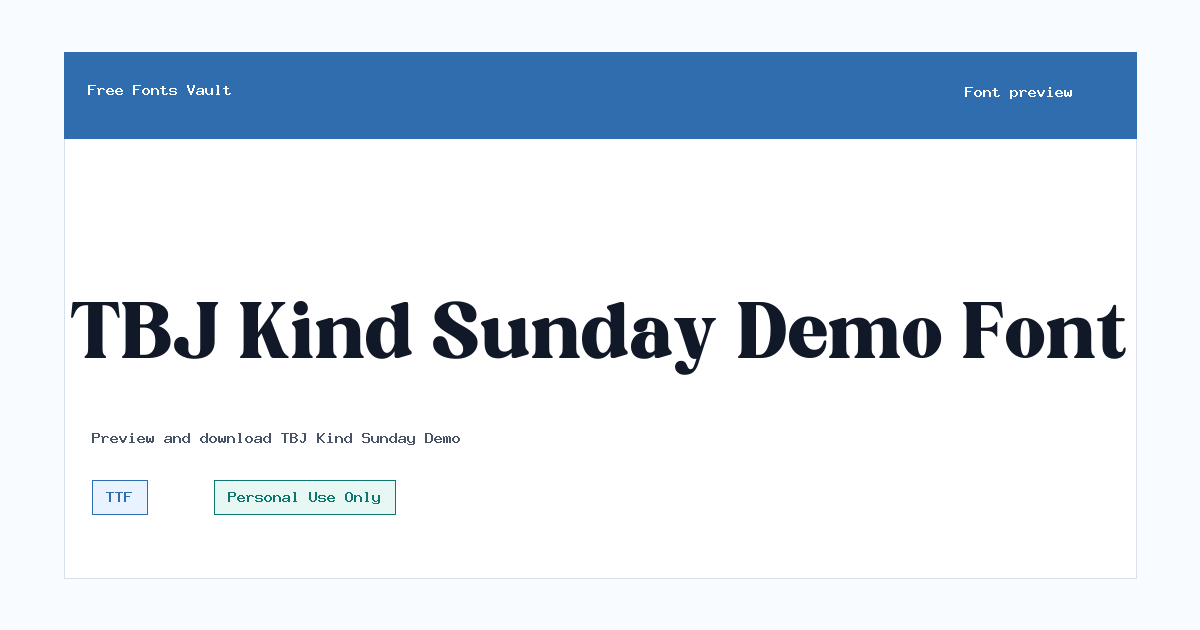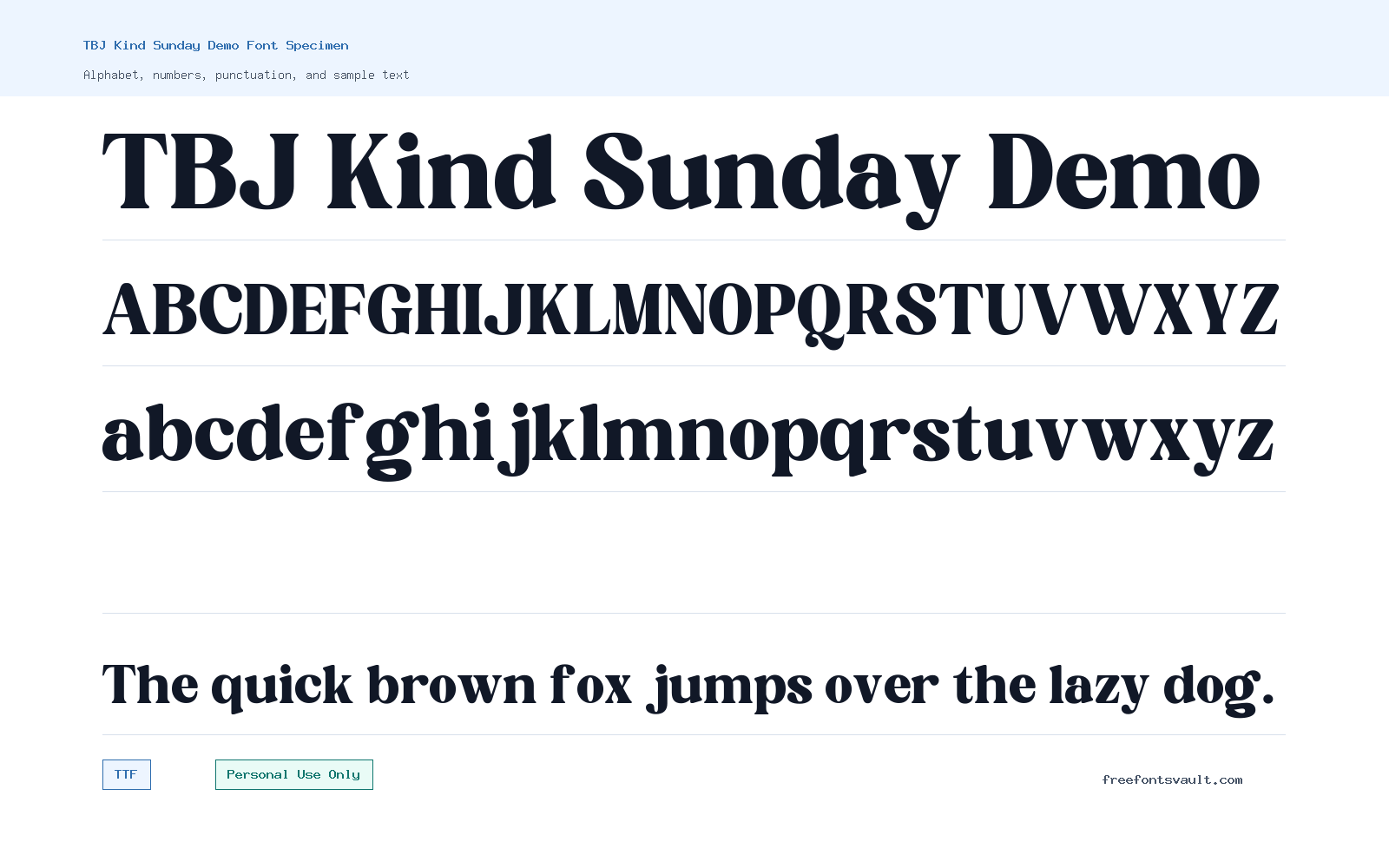
TBJ Kind Sunday Demo
- Designer Taboja Studio
TBJ Kind Sunday Demo is a serif display font from Taboja Studio with a personal-use license. It is best approached as a try-before-you-use font for creative layouts, branding tests, social graphics, and short headline previews.
TBJ Kind Sunday Demo has the kind of serif personality that works best when the text is allowed to stand on its own. Rather than treating it like a long-reading body font, use it where a few words need character: a title, a logo draft, a quote graphic, a poster heading, a packaging mockup, or a moodboard label. The demo file is available as a regular-weight TTF, which makes it easy to install and test in common design apps. Since only one regular style is present, the font is most useful for display settings where you can control size, spacing, and contrast manually.
For designers, the safest way to judge TBJ Kind Sunday Demo is to test your actual words in the preview before downloading. Serif display fonts can change a lot depending on the letters used, especially in names, short phrases, and brand-style lockups. Try uppercase and lowercase combinations, check how repeated letters look, and test punctuation if your project needs it. If you are building a logo concept, poster, invitation, or web hero mockup, start with a generous size and adjust tracking slowly. Tight spacing may give the words a more compact look, while wider spacing can make the font feel calmer and easier to read.
This font can be useful for visual projects that need a softer serif tone without relying on a plain text face. It may suit boutique-style mockups, personal branding drafts, lifestyle graphics, wedding or event concepts, quote cards, packaging studies, and editorial-style titles. Keep the text short. A font like this is usually stronger in a few words than in a full paragraph. For menus, captions, product descriptions, or blog text, pair it with a simpler sans serif or a clean text serif so the decorative voice does not compete with readability.
For web mockups, TBJ Kind Sunday Demo can help you explore a heading direction before committing to a final type system. Use it in hero headlines, section openers, or large image overlays, then pair it with a neutral font for navigation and body copy. Check how it renders at different screen sizes, because display serifs can lose their charm when reduced too far. If the strokes or details begin to blur, keep it for larger headings and choose a sturdier companion font for smaller interface text.
- Best suited to short display text, logo drafts, posters, and visual mockups
- Single regular style, making spacing and sizing choices important
- Designed by Taboja Studio
- Logo concepts and personal branding drafts
- Invitation, quote, and social media designs
- Packaging mockups and boutique-style presentations
- Website hero headlines and editorial-style mockups
Who designed TBJ Kind Sunday Demo?
TBJ Kind Sunday Demo is listed as a font by Taboja Studio.
What kind of projects is this font good for?
It is best for short display uses such as logo drafts, poster headings, invitation designs, packaging mockups, quote graphics, and website hero text.
Is this a good font for long paragraphs?
It is better suited to short text. For paragraphs, pair it with a simpler and more readable body font.
Does the font include multiple weights?
Only a regular 400 style is listed, so bold, italic, or additional weights are not part of the available variant.